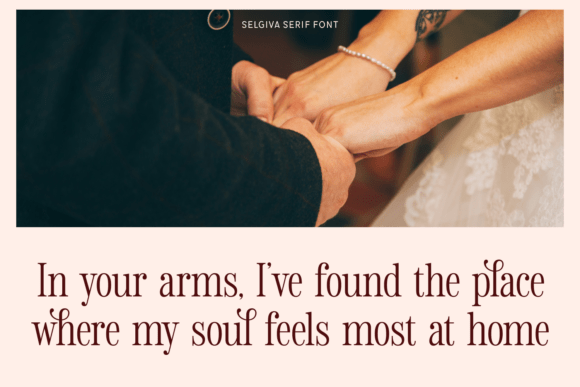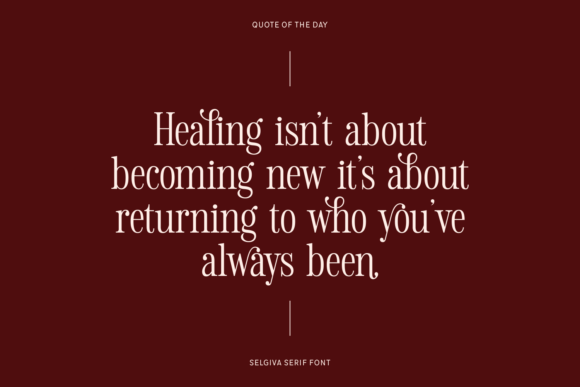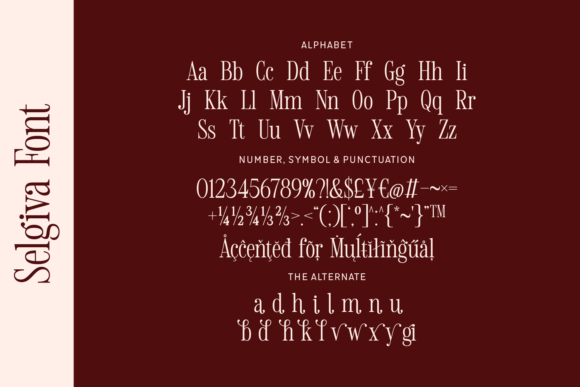
Introduction to Selgiva Font
Remember the moment when you finally found the perfect font to elevate your creative project? For designers, that ‘aha’ moment is priceless. And for those seeking a bold yet polished typographic voice, we’re excited to introduce you to the refined modern serif font that’s been making waves in the design community: the Selgiva Font.
As a valuable design resource, Selgiva Font boasts a unique blend of timeless elegance and playful charm, making it an ideal choice for branding, editorial design, and packaging. With its high-quality features, including graceful ligatures, unique alternates, and flowing curves, this font adds personality and sophistication to any layout.
Key Features of Selgiva Font
- High-quality design resource ideal for creative projects requiring a unique touch
- Designed with precision and attention to detail, ensuring a crisp and clear display at resolutions up to 300 DPI
- Includes a wide range of characters, including uppercase and lowercase letters, numbers, and punctuation marks
- Perfect for designers looking for a distinctive and professional font to elevate their design projects
Honest Review: Selgiva Font
I recently stumbled upon the Selgiva Font and I must say it’s been a game-changer for my design projects. This free download has been a valuable resource for my creative endeavors.
- What works well: ✨ The font’s modern design and high quality make it perfect for professional projects. I particularly appreciate its transparent background, which allows for seamless integration with any design.
- What works well: ✨ The font’s versatility is another plus – it works well in various contexts, from headings to body text.
However, there are a few limitations to consider: ⚠️ The font may not be suitable for projects requiring a lot of bold or italic text, as it can become somewhat difficult to read in these formats.
Overall, I’m thoroughly impressed with the Selgiva Font. Its high quality, modern design, and transparent background make it a valuable addition to any designer’s toolkit. While it may have some limitations, I believe it’s a great resource for designers looking for a reliable, free download.
Tips for Getting the Most Out of Selgiva Font
To get the most out of Selgiva Font, use it for creative projects that require a high-quality, transparent background. This font is ideal for designs that need a clean and modern look. Experiment with different font sizes, colors, and backgrounds to create visually appealing designs.
Selgiva Font is commonly used for designing logos, business cards, and marketing materials. Its high-quality design makes it perfect for presentations, infographics, and other visual aids. With its transparent background, you can easily layer it over images or other design elements to create unique and eye-catching designs.
Great Vibes Font is a modern, high-quality script font that’s ideal for designers looking for a creative design resource. It’s available for free download and features a transparent background, making it easy to use on light-colored backgrounds.